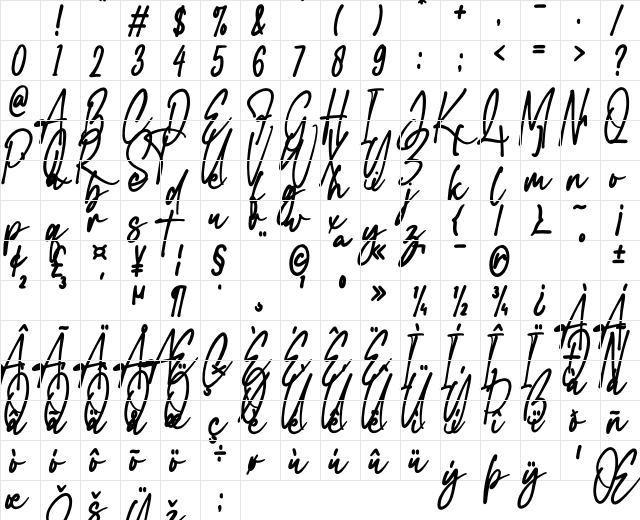
Complete Cristiano Signature Regular glyph index. Displaying only characters natively supported by Cristiano Signature Regular font.
Cristiano Signature is a composed and adaptable typeface that performs quietly and consistently across a wide range of design contexts.